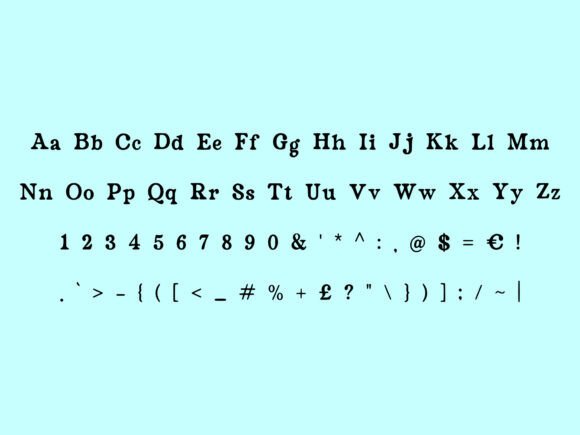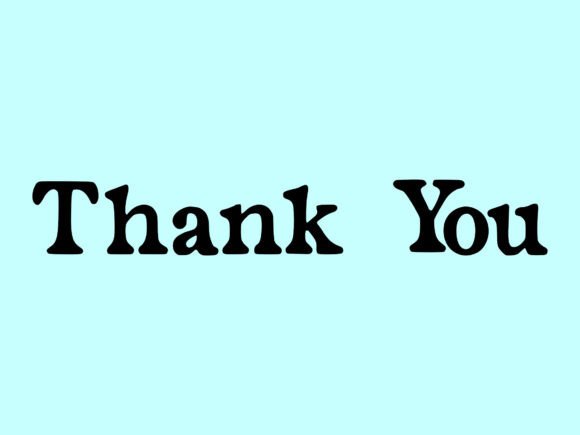
Introducing Enchanted Font: Elevate Your Designs with Elegance and Sorcery
In the realm of typography, few fonts manage to capture the essence of elegance and magic as effortlessly as Enchanted Font. This captivating serif font design is poised to transform your creative projects, imbuing them with a hint of sophistication and whimsy. Whether you’re a designer, crafter, or simply a creative enthusiast, Enchanted Font promises to elevate your branding, invitations, posters, and digital designs with its playfully classy aesthetic.
The Magic of Enchanted Font
Enchanted Font is more than just a typographic choice; it’s an experience. Its fluid yet intricate letterforms exude a timeless artistic appeal, making it suitable for both personal and professional design undertakings. The font’s versatility is one of its most compelling features, seamlessly adapting to a wide range of applications, from fantasy-themed projects to social media graphics and product packaging.
Effortless Elegance for Branding and Beyond
Branding is about creating a lasting impression, and Enchanted Font is designed to help you do just that. Its elegant serif design adds a touch of sophistication to any brand identity, making it perfect for:
- Logos and wordmarks: Create a memorable brand identity with a font that stands out.
- Invitations and event materials: Add a touch of class and whimsy to your invitations, wedding cards, and event branding.
- Posters and flyers: Capture attention with a font that’s both playful and refined.
Bringing Life to Digital Designs and Print Media
In today’s digital age, versatility is key. Enchanted Font shines across various mediums, including:
- Digital designs: Enhance your social media graphics, website headers, and digital ads with a font that pops.
- Print media: Elevate your brochures, business cards, and product packaging with a touch of elegance.
Why Choose Enchanted Font?
With so many fonts available, what sets Enchanted Font apart?
- Unique artistic appeal: Its intricate letterforms and fluid design create a truly distinctive look.
- Versatility: Suitable for a wide range of projects, from fantasy to corporate branding.
- Elegance and playfulness: A perfect balance of sophistication and whimsy.
Enrich Your Typography Journey
Typography is an art form that can elevate or detract from your design. With Enchanted Font, you can:
- Explore new creative avenues: Let the font’s versatility inspire you to try new design approaches.
- Save time: With a font that’s easy to use and adapt, you can focus on the creative aspects of your project.
- Stand out: In a sea of generic fonts, Enchanted Font helps your design make a lasting impression.
| Font Name | Enchanted Font |
| Author | MagicalBlueStudios |
Enchanted Font is more than just a serif font design; it’s a tool to unlock your creative potential. Its unique blend of elegance, playfulness, and versatility makes it an indispensable asset for designers, crafters, and creatives. Whether you’re looking to add a touch of magic to your branding, invitations, posters, or digital designs, Enchanted Font promises to deliver. So why settle for ordinary when you can enchant your designs with a hint of sorcery?
Discover the transformative power of Enchanted Font and elevate your typography journey today.